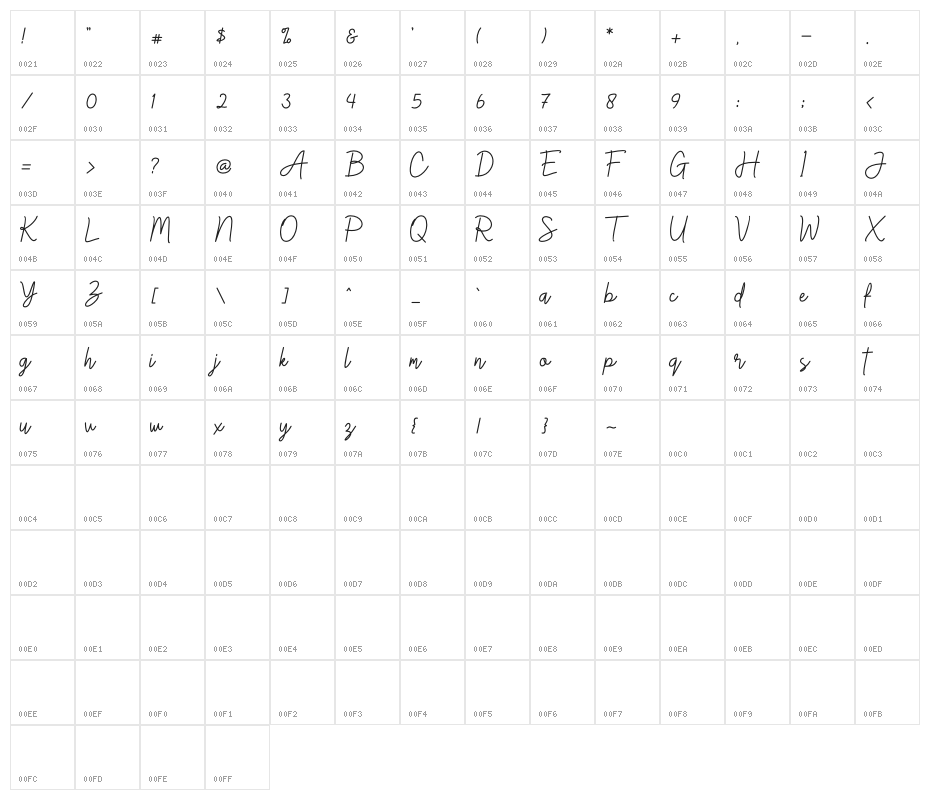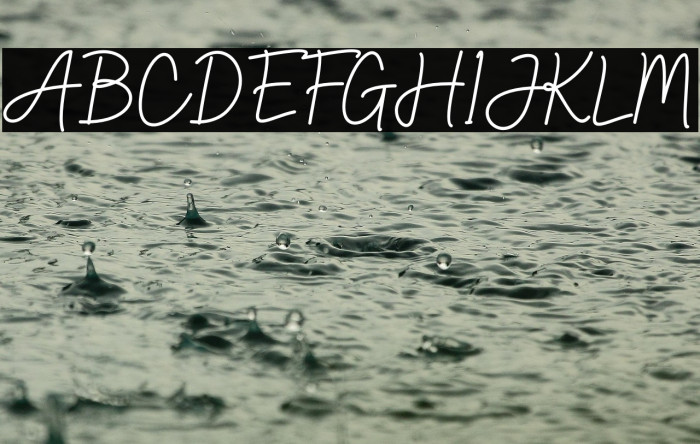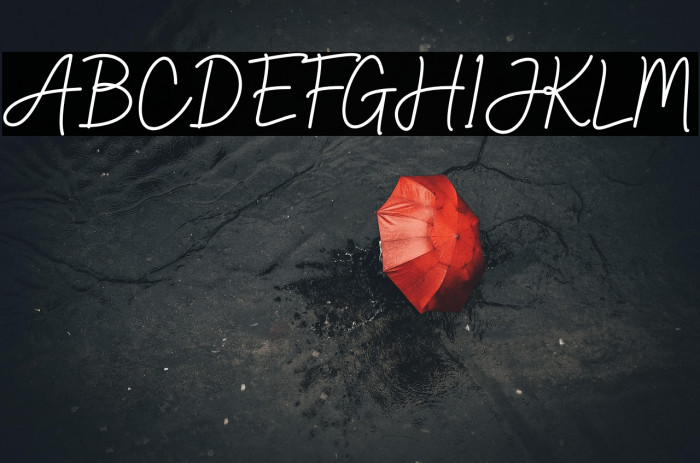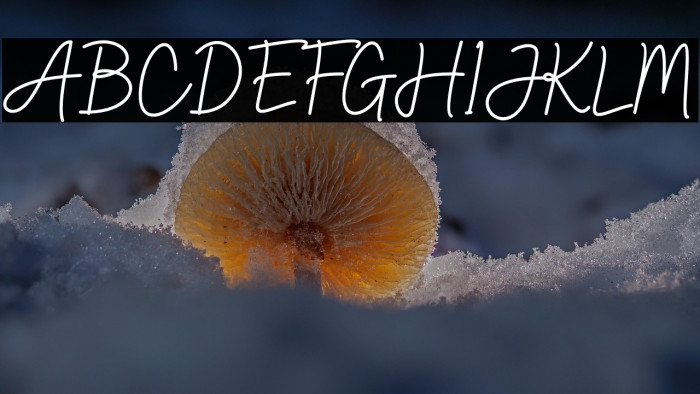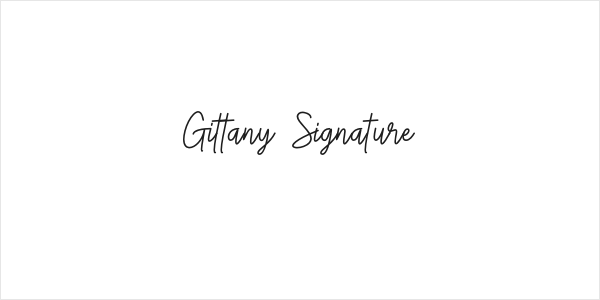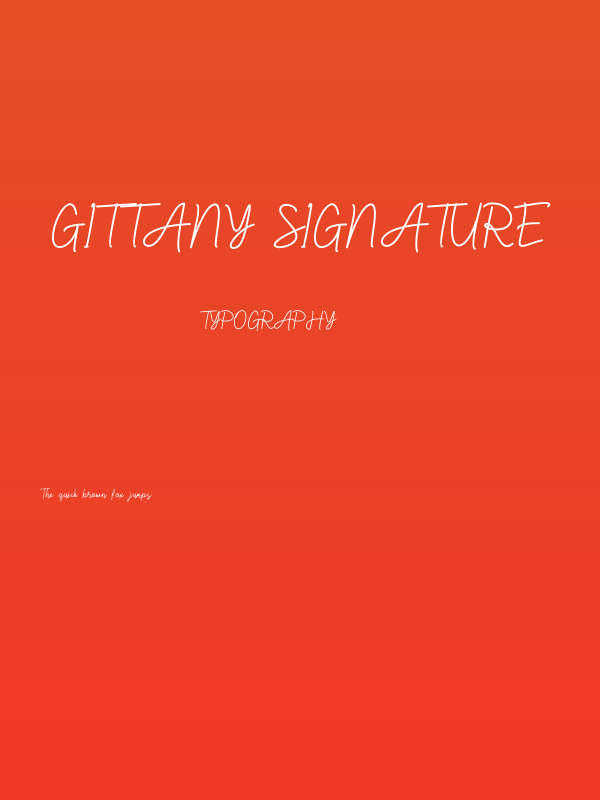
Gittany Signature Font
Gittany Signature Description
This font exudes a casual and elegant handwritten style, characterized by smooth, flowing lines that mimic natural handwriting. The uppercase letters are slightly taller and more elongated, while the lowercase letters maintain a consistent, fluid appearance. The numerals are clear and easy to read, complementing the overall aesthetic. Special characters are seamlessly integrated, maintaining the font's cohesive look. The font's design is both approachable and stylish, making it suitable for a variety of creative applications.